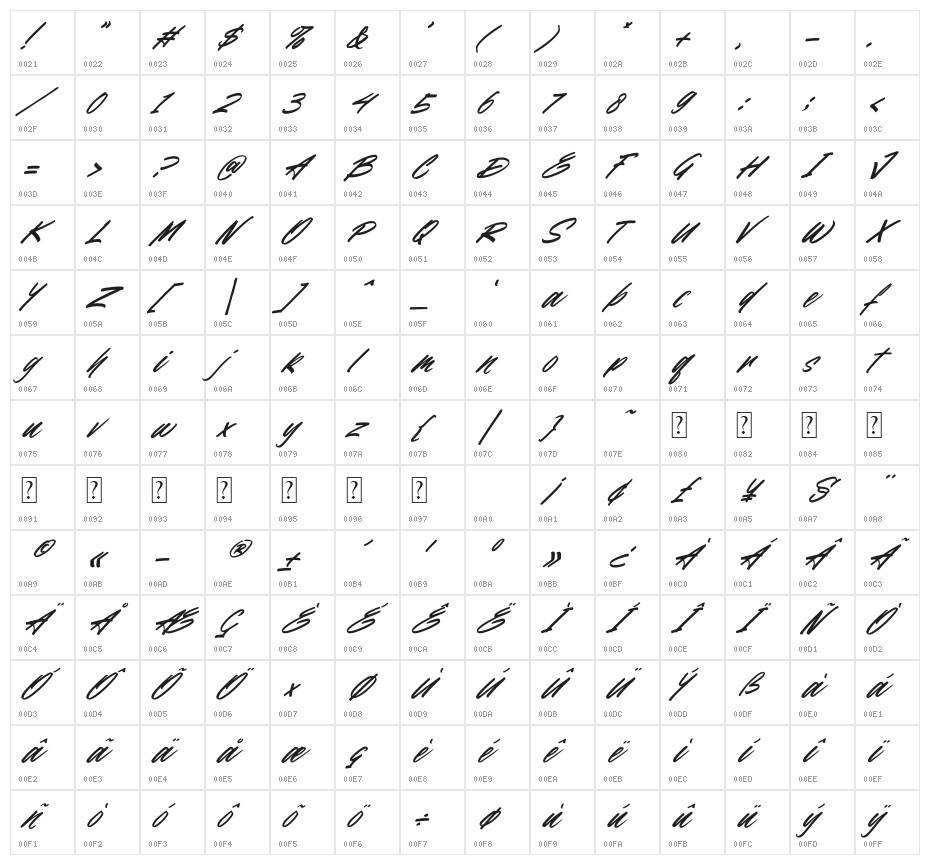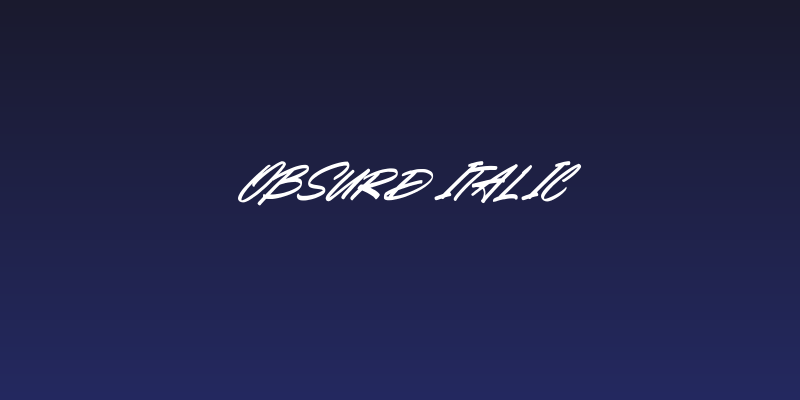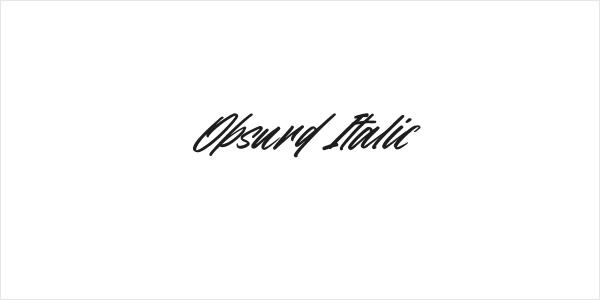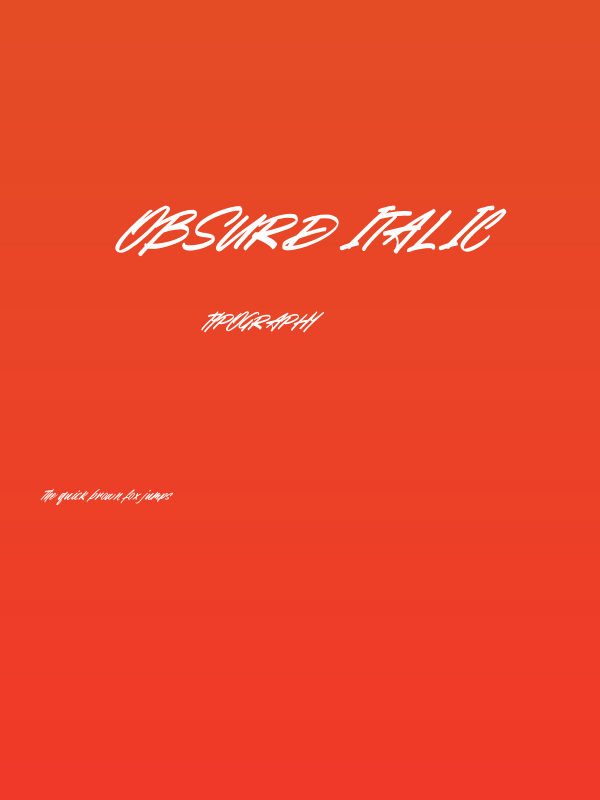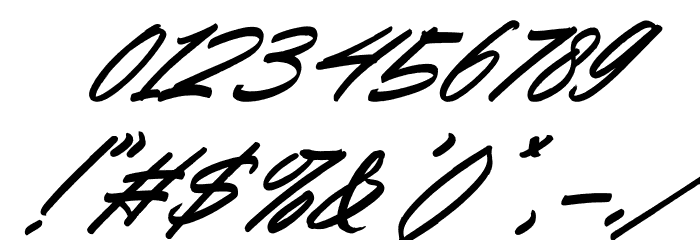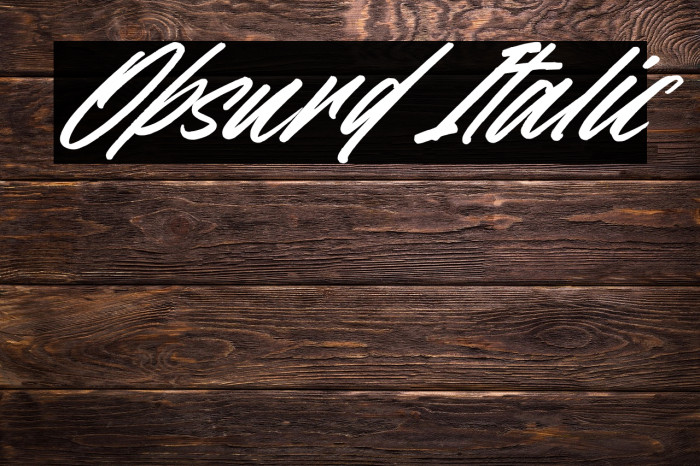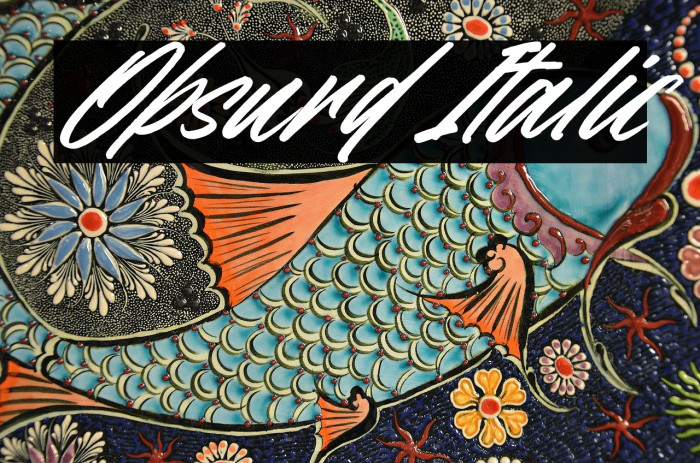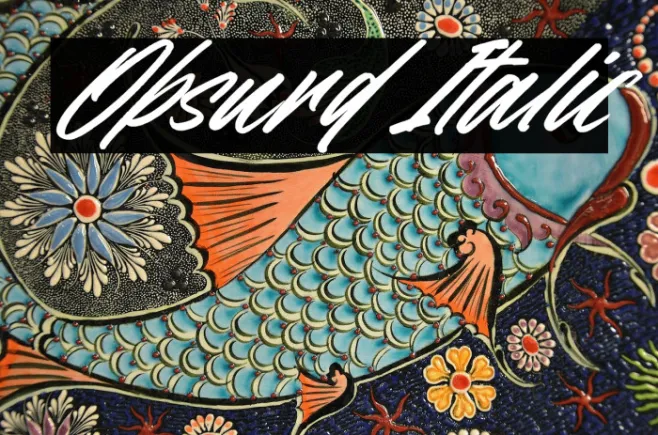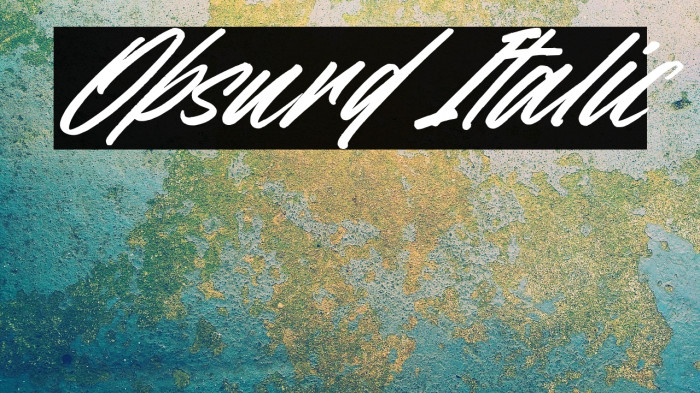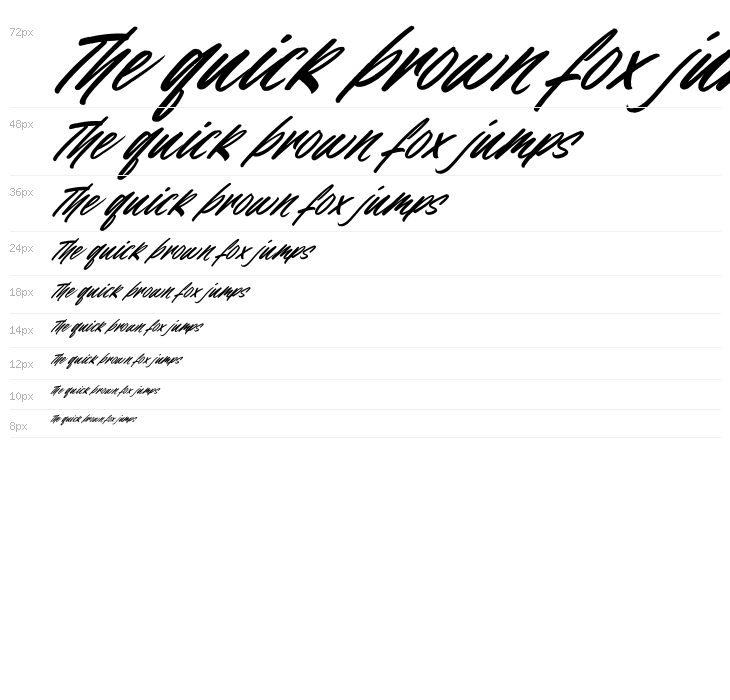
Obsurd Italic Font
Obsurd Italic Description
This font features a dynamic and energetic script style with a pronounced slant, giving it a sense of motion and fluidity. The strokes are bold and expressive, with varying thickness that adds a lively character to the text. The uppercase letters are particularly striking, with exaggerated curves and loops, while the lowercase letters maintain a consistent flow. Numbers and special characters are designed to match the overall aesthetic, ensuring a cohesive look across all text elements. The font's handwritten appearance makes it ideal for projects that require a personal touch or a sense of spontaneity.
| Proposed Projects | Ideal for branding, invitations, greeting cards, and creative advertising. |